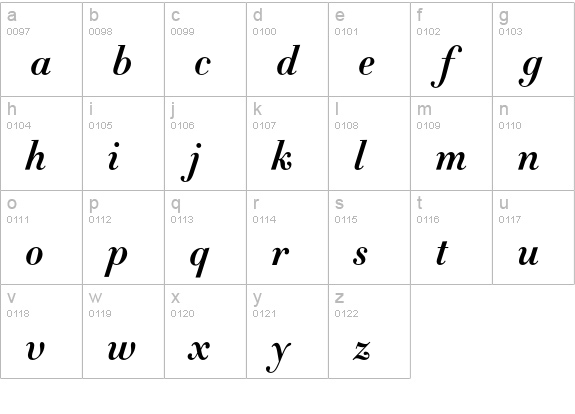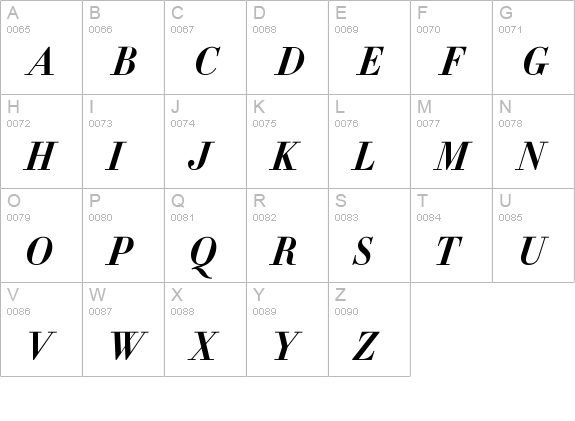
Didot-HTF-B06-Bold-Ital is a strong, high-contrast variant in the Didot typeface family \xE2\x80\x94 well suited to headlines, attention-grabbing titles, and strong calls-to-action.
Didot-HTF-B06-Bold-Ital is a stunning and elegant font that exudes sophistication and style. With its bold and italicized design, this font commands attention and adds a touch of luxury to any project. Perfect for headlines, logos, and design projects that require a timeless and classic look, Didot-HTF-B06-Bold-Ital is sure to make a lasting impression. The best part? This exquisite font is available for free download at FontsMarket.com. Don't miss out on the opportunity to elevate your designs with this premium typeface that effortlessly combines traditional charm with modern flair. Download Didot-HTF-B06-Bold-Ital today and take your projects to the next level!